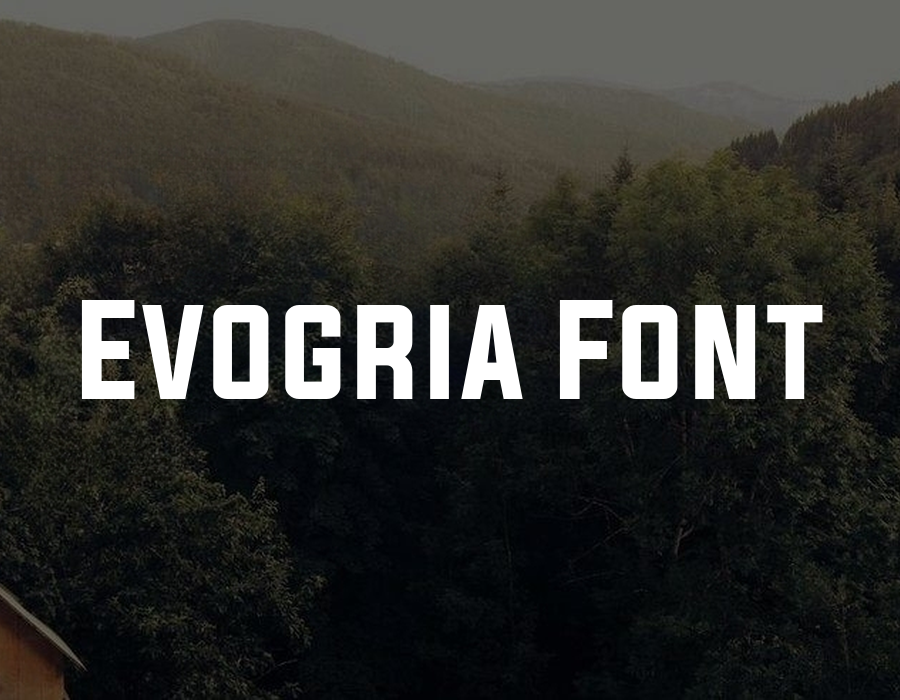
About Evogria Font
Evogria is a versatile and contemporary geometric sans-serif typeface designed to balance aesthetic elegance with functional clarity. Its clean, rounded letterforms feature subtle humanist details that soften its geometric base, providing excellent readability across both print and digital media. With a comprehensive family of weights and widths, Evogria offers great flexibility for creating sophisticated typographic hierarchies in user interfaces, corporate branding, editorial design, and packaging. Its modern, slightly futuristic personality makes it a strong choice for projects that aim to communicate innovation, approachability, and streamlined efficiency.